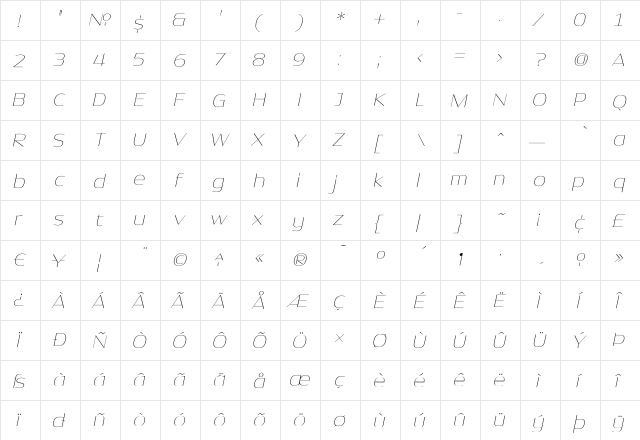
DynastyThin Italic
| Foundry | n Hughes - A Device font |
Design Context for DynastyThin Typeface
DynastyThin offers clean, dependable letterforms without strong stylistic allegiance, making it a practical choice for designers who need flexibility. The slanted form adds forward momentum and visual energy. The delicate stroke weight brings airiness and refinement to layouts.
Pro Tip: Use DynastyThin for emphasis, pull quotes, and subheadings where its slanted energy can add rhythm to the layout.